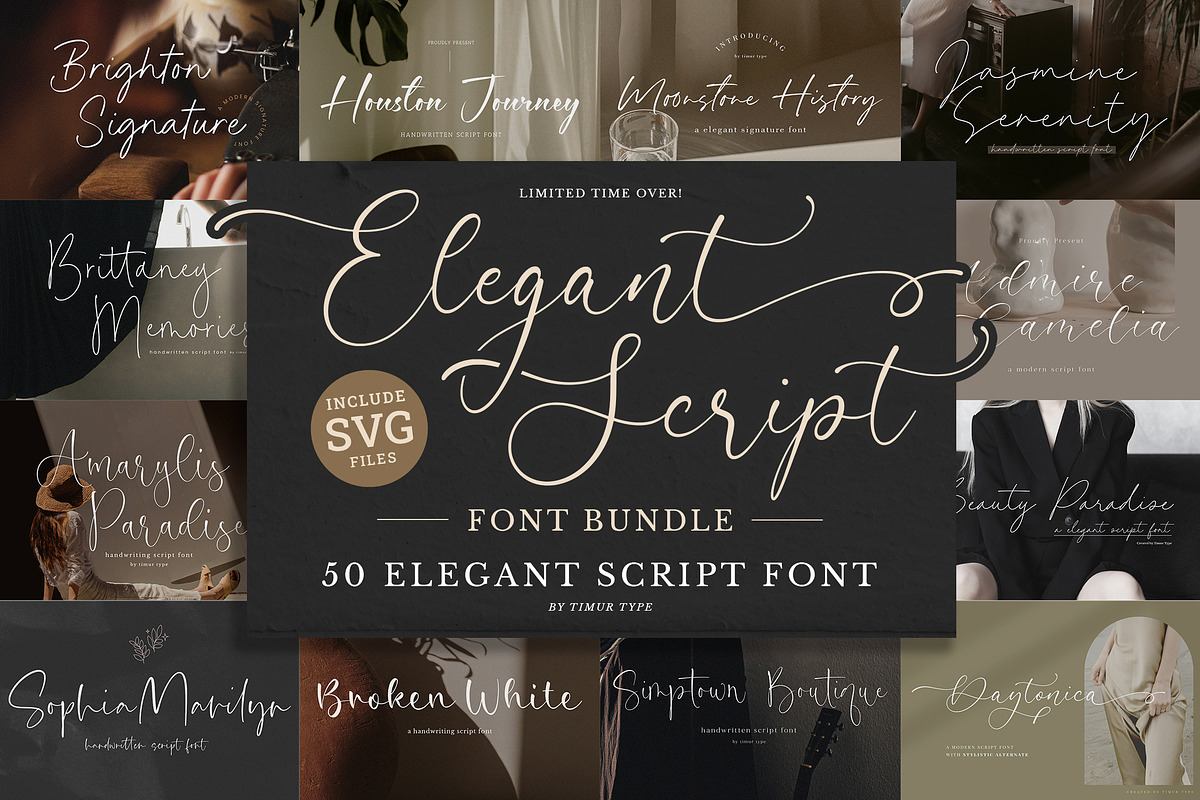
Elegant Script Font Bundle Free Download
Elevate your creative projects with Elegant Script Font Bundle Free Download, a sophisticated collection of stylish and graceful script fonts. You need to purchase this font bundle for commercial use. However, Elegant Script Font Bundle Free Download is available for personal or test purposes, allowing you to explore its refined typography. Perfect for invitations, branding, wedding stationery, social media graphics, and more, these fonts deliver timeless elegance and versatility. Designers love their flowing curves, readability, and charm, enhancing visual appeal effortlessly. Experience the artistic beauty and professional impact of Elegant Script Font Bundle Free Download today, and transform your designs into stunning masterpieces.